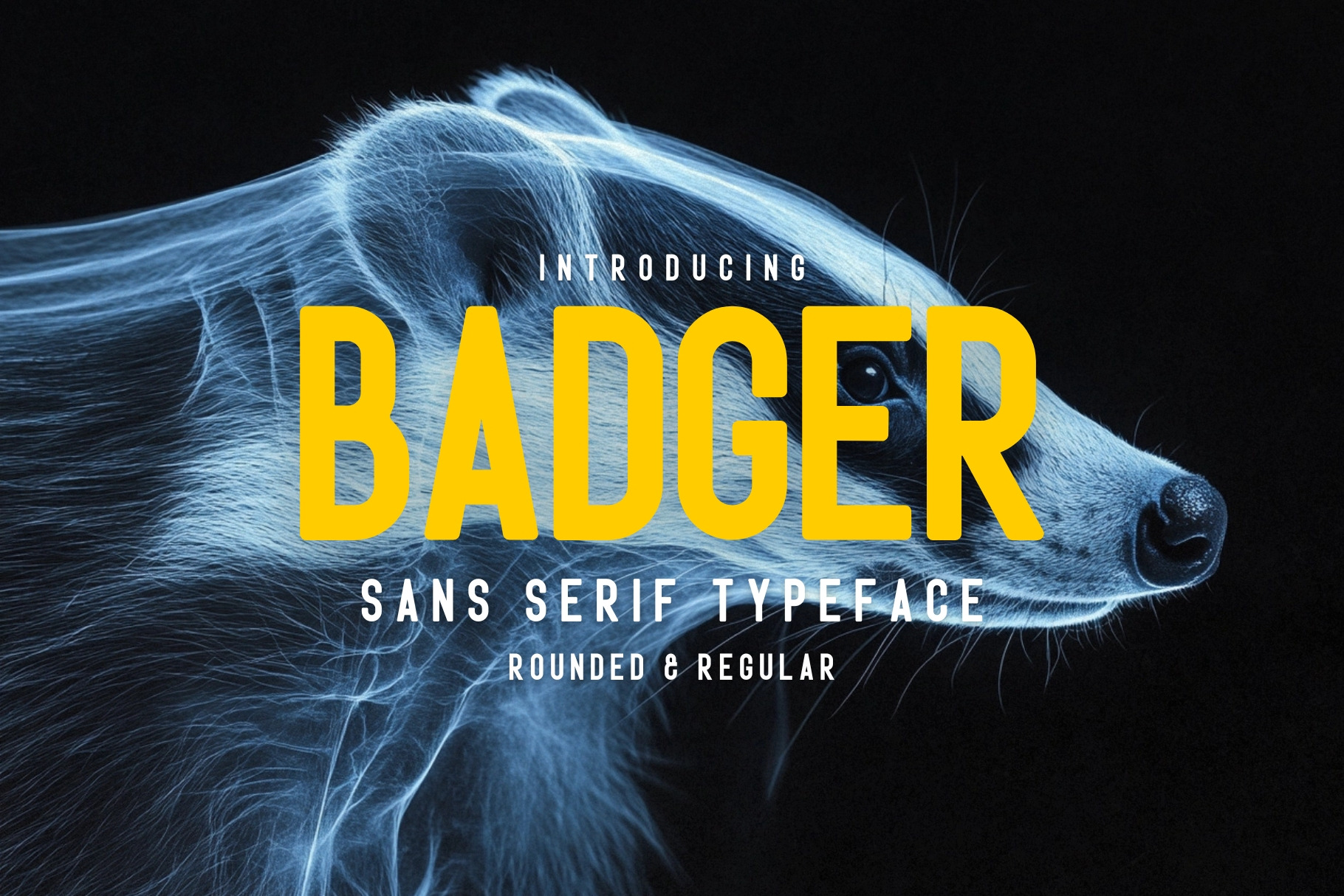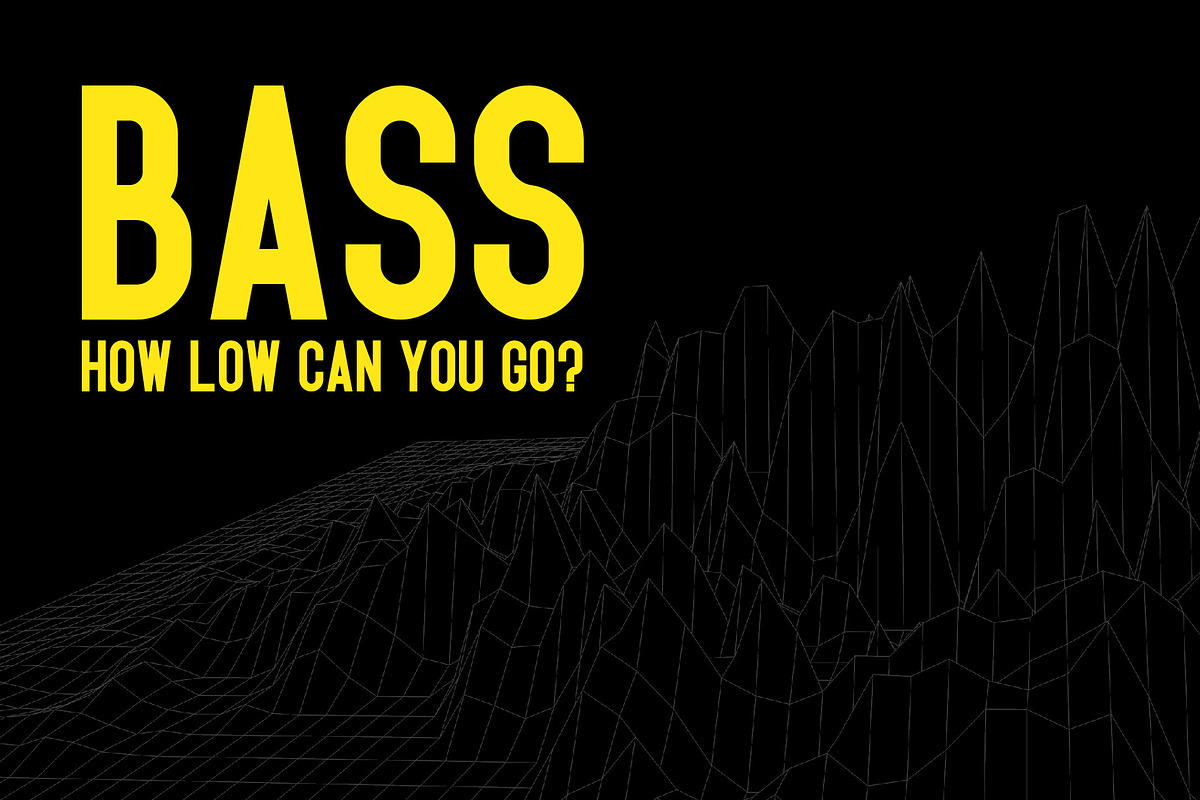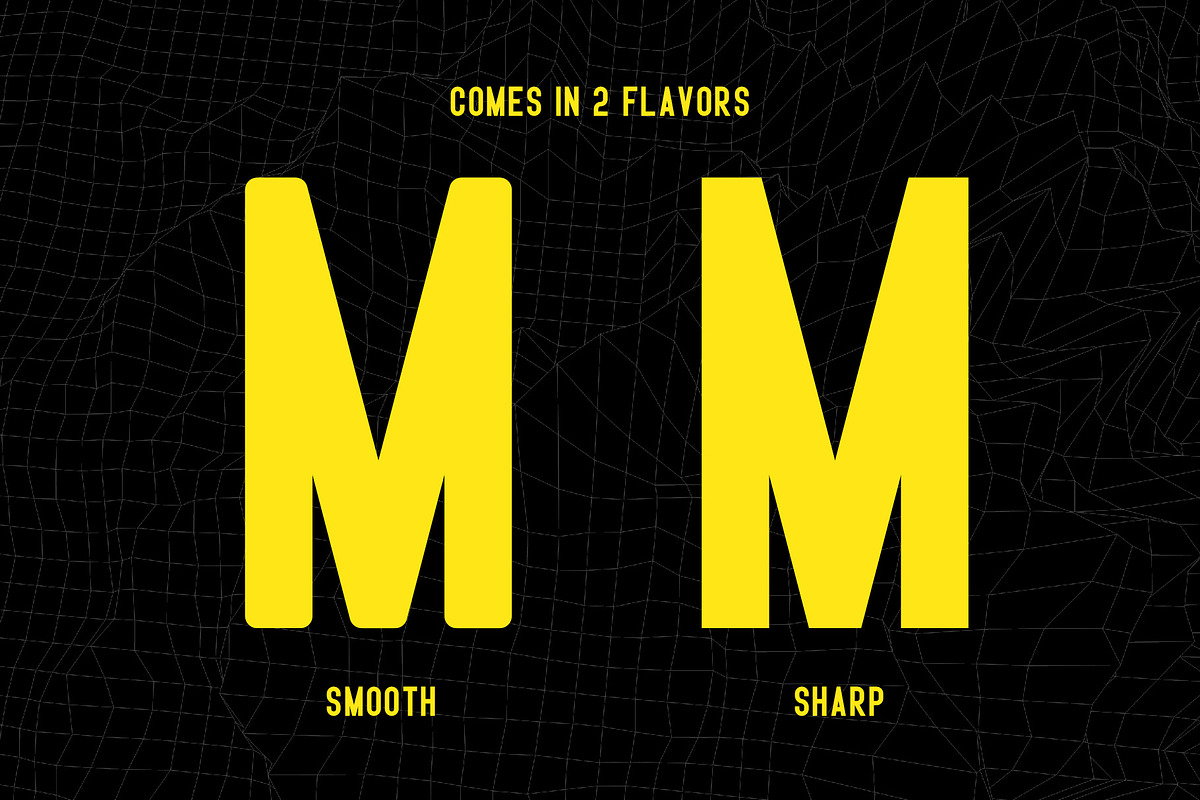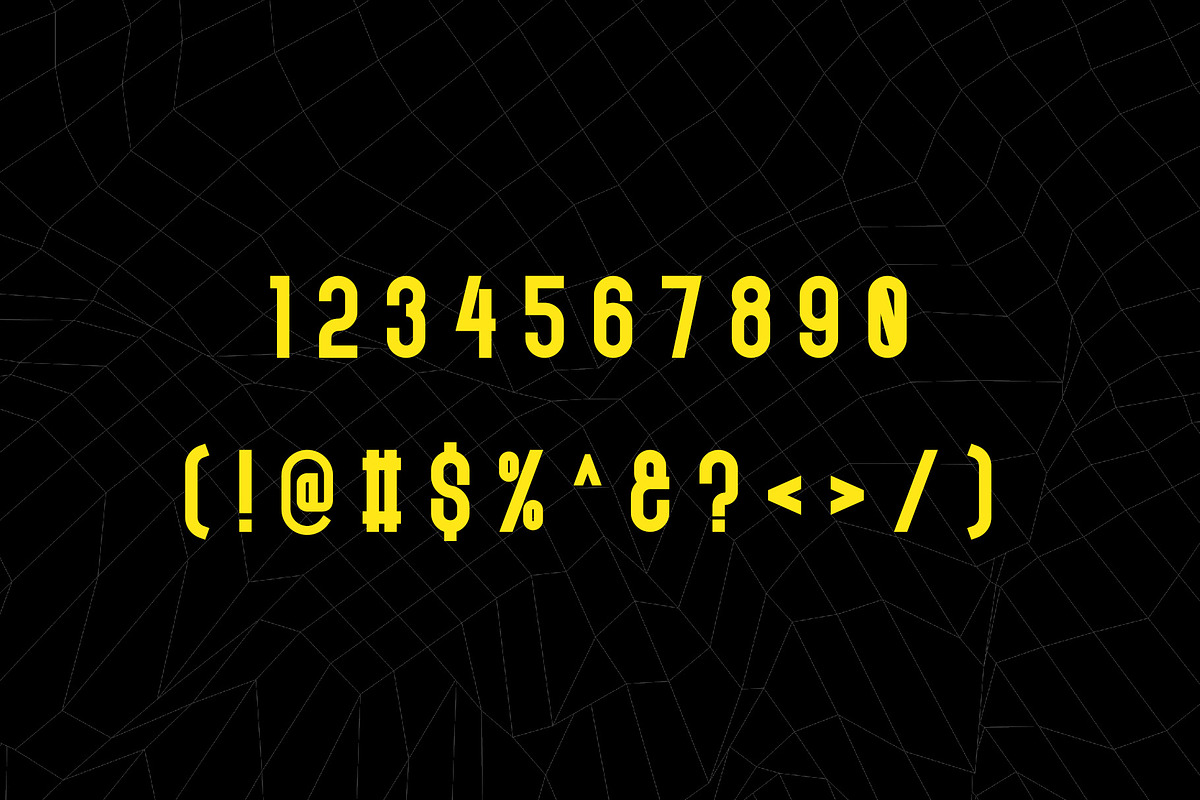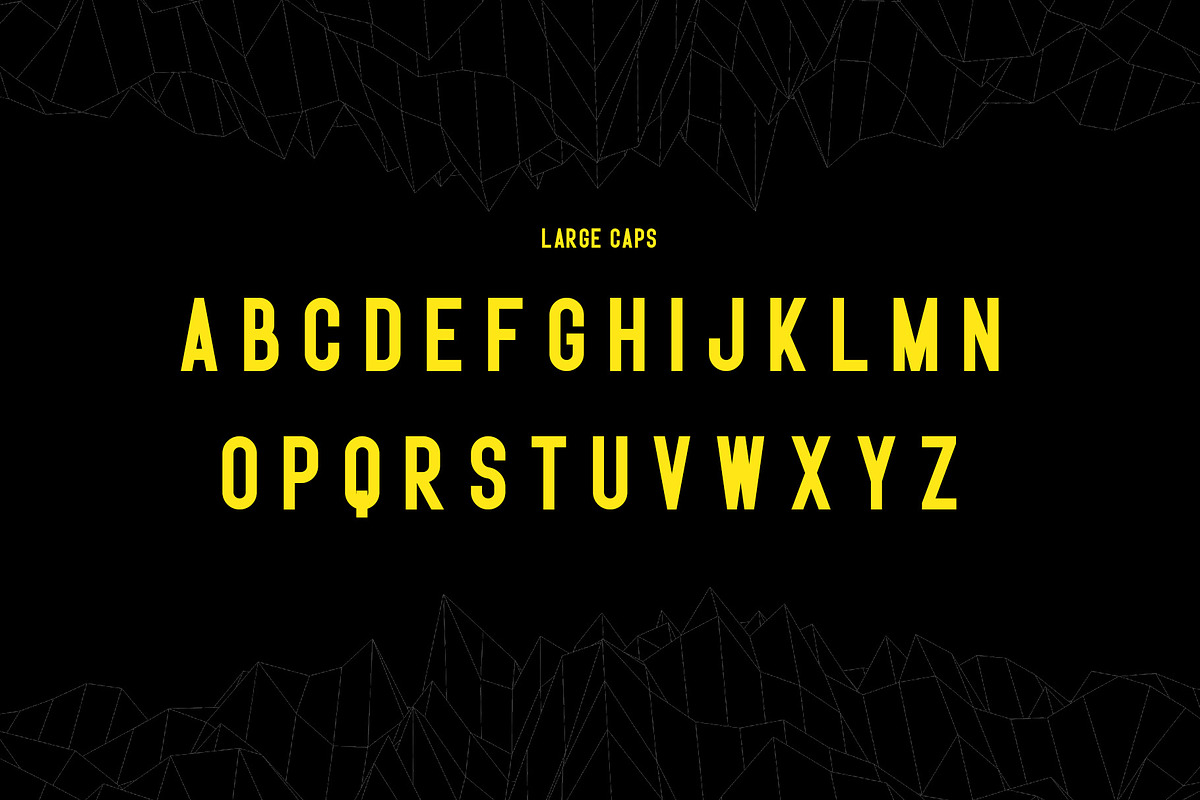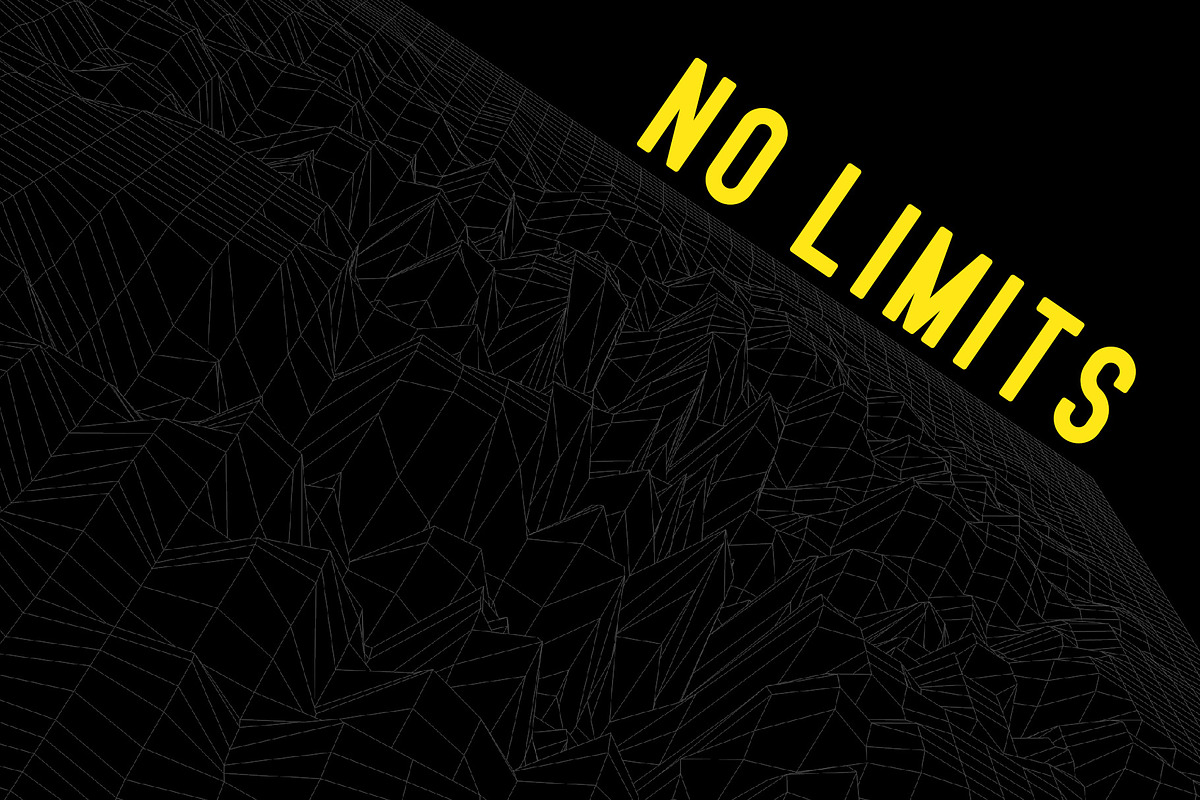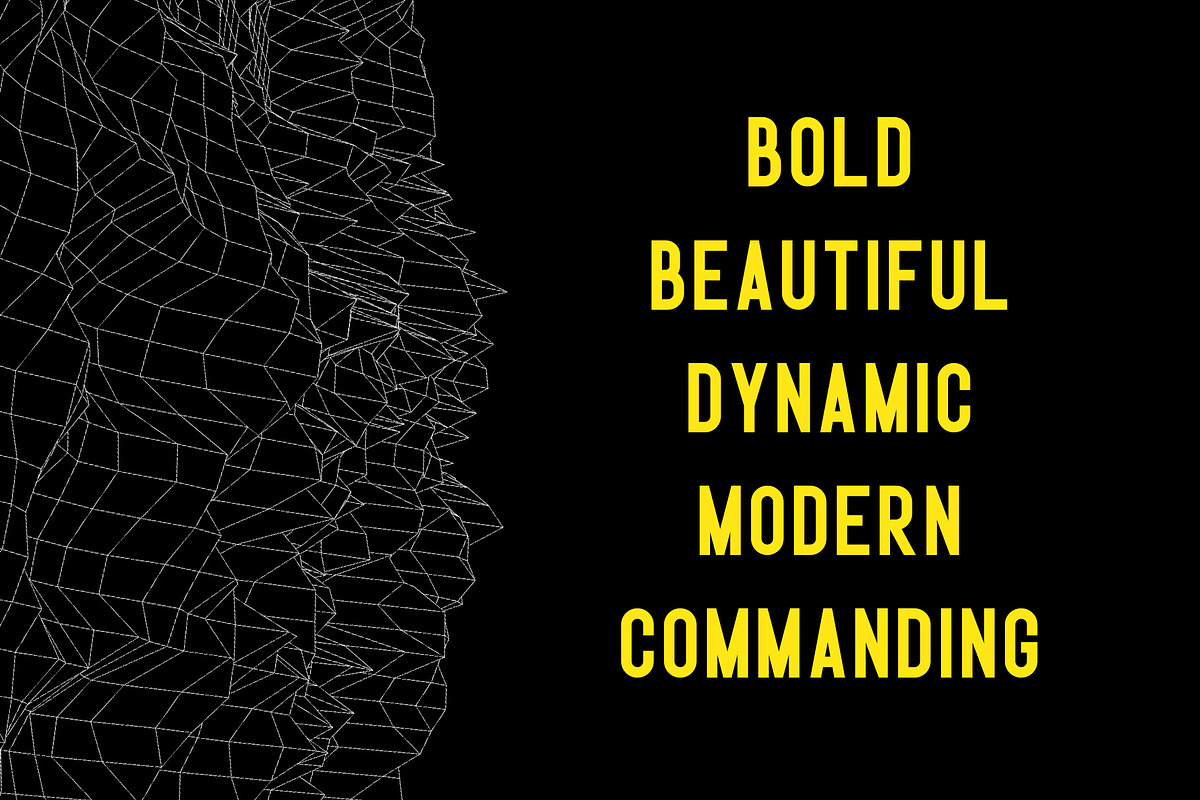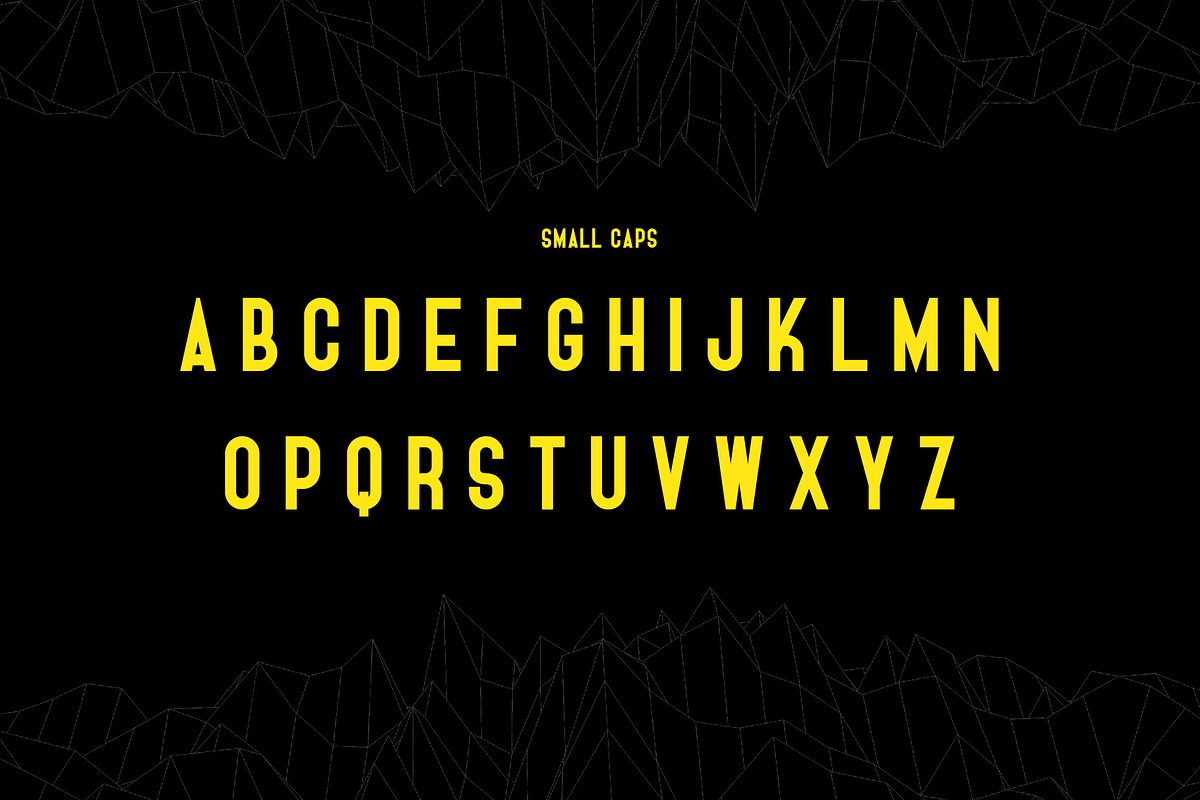
Badger - Sans Serif Typeface
Inspired by the one of the most badass animals, badger is a bold sans serif typeface ready to convey your message. Its optimum legibility, clean, and geometric look is perfect branding, brochures, greeting cards, quotes, posters, stationary, design titles, blog headers, and much more.
This all caps typeface come in 2 flavors round and sharp. There are also alternative versions of each letter, which you can change via capitalization.